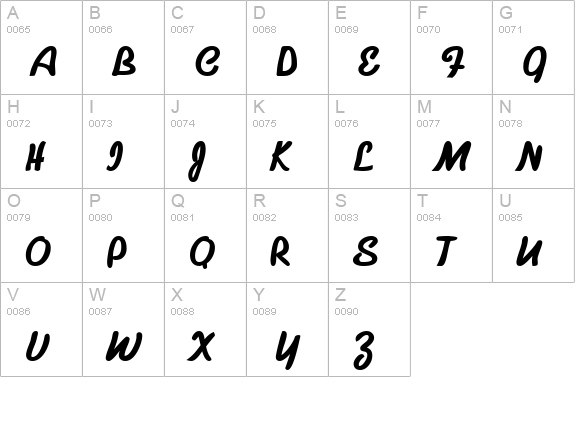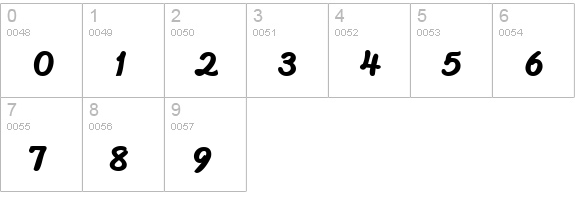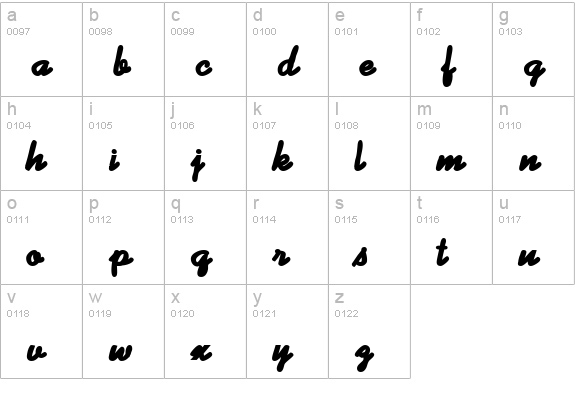
Lucky Font Details
Lucky font exudes a sense of whimsy and playfulness, making it the perfect choice for designs that aim to capture attention and inject a touch of fun. With its rounded edges and quirky charm, Lucky font is sure to bring a smile to any project it graces. This versatile typeface is ideal for a wide range of creative endeavors, from branding and packaging to invitations and social media graphics. Best of all, Lucky font is completely free to download at FontsMarket.com. This means you can easily add this delightful font to your collection without breaking the bank. So why wait? Give your designs a boost of personality and charm with Lucky font today!